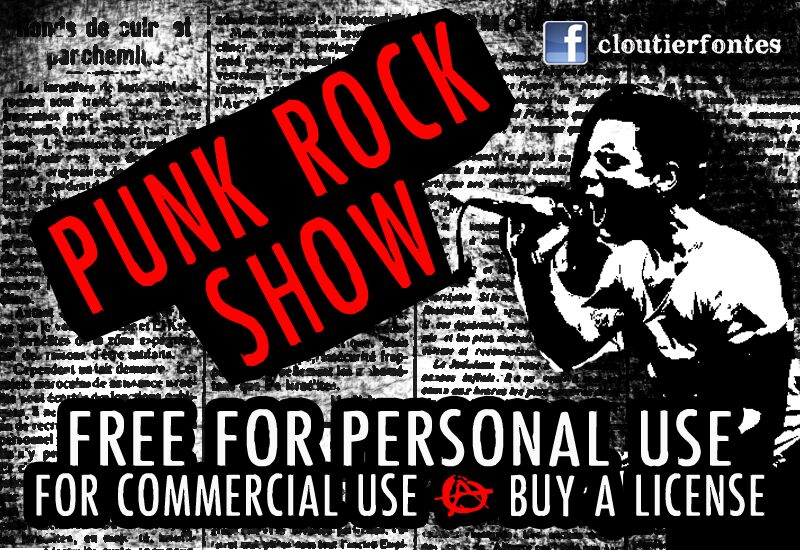
Punk Rock Show is a free eroded display font with tall, tightly drawn capitals and an unruly handmade silhouette. Its narrow letters bend slightly from one character to the next, and scraped patches break through the heavier forms like damaged screen-print ink, sometimes almost swallowing whole outer edges.
Album artwork is its clearest home, especially for punk and garage rock. The same battered lettering suits gig posters, club flyers, and band merchandise influenced by torn venue bills and rough overprinting. In editorial design, it suits independent music magazine openers and feature spreads shaped around photocopied show graphics and grainy, high-contrast documentary backstage photography.
Steve Cloutier